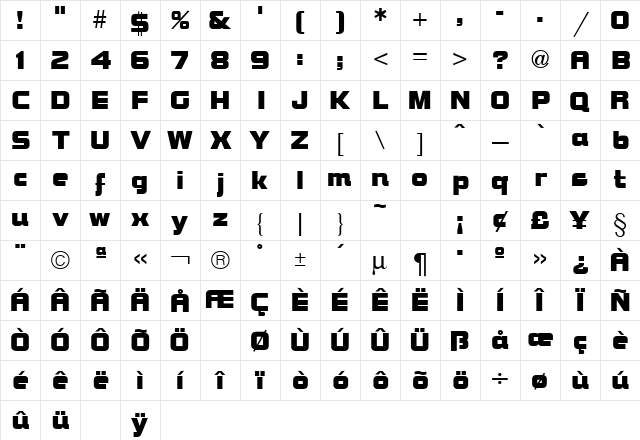
Bolt Bold Free Font
Bolt Bold
Bolt Family
Bolt Bold
Design Context for Bolt
Bolt is a composed and adaptable typeface that performs quietly and consistently across a wide range of design contexts. Its bold stroke weight gives it real presence on the page.
Pro Tip: Use Bolt in both headline and body roles to test its range before committing to a single application.